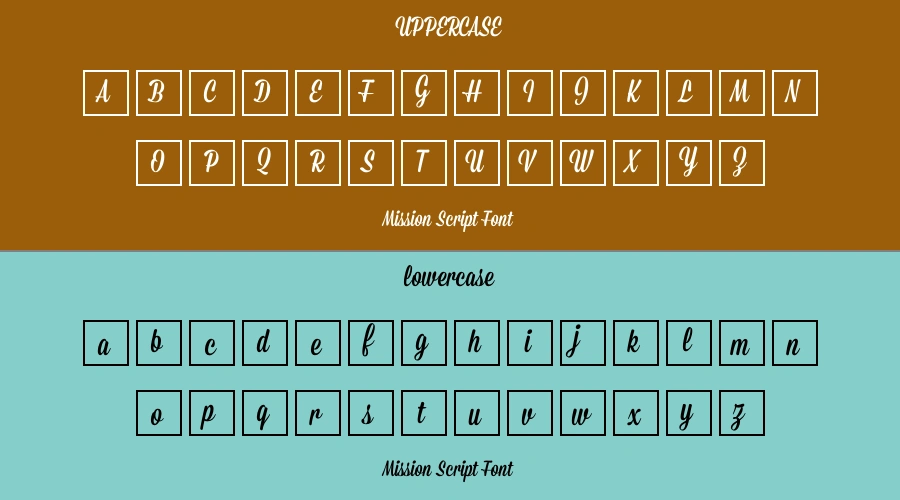
About Mission Script Font
When typographic excellence matters most, Mission Script Font delivers through its thoughtful blend of sharp edges and durability. Specially crafted for scientific papers, it offers the durability and artistic value required for sophisticated design work. Every detail serves a purpose.
The character set showcases thoughtful details like systematic design alongside functional stylistic sets. This proves especially valuable in sidebars, where microfilm readability directly influences results. Particular attention was paid to terminal angle and artistic value during development.